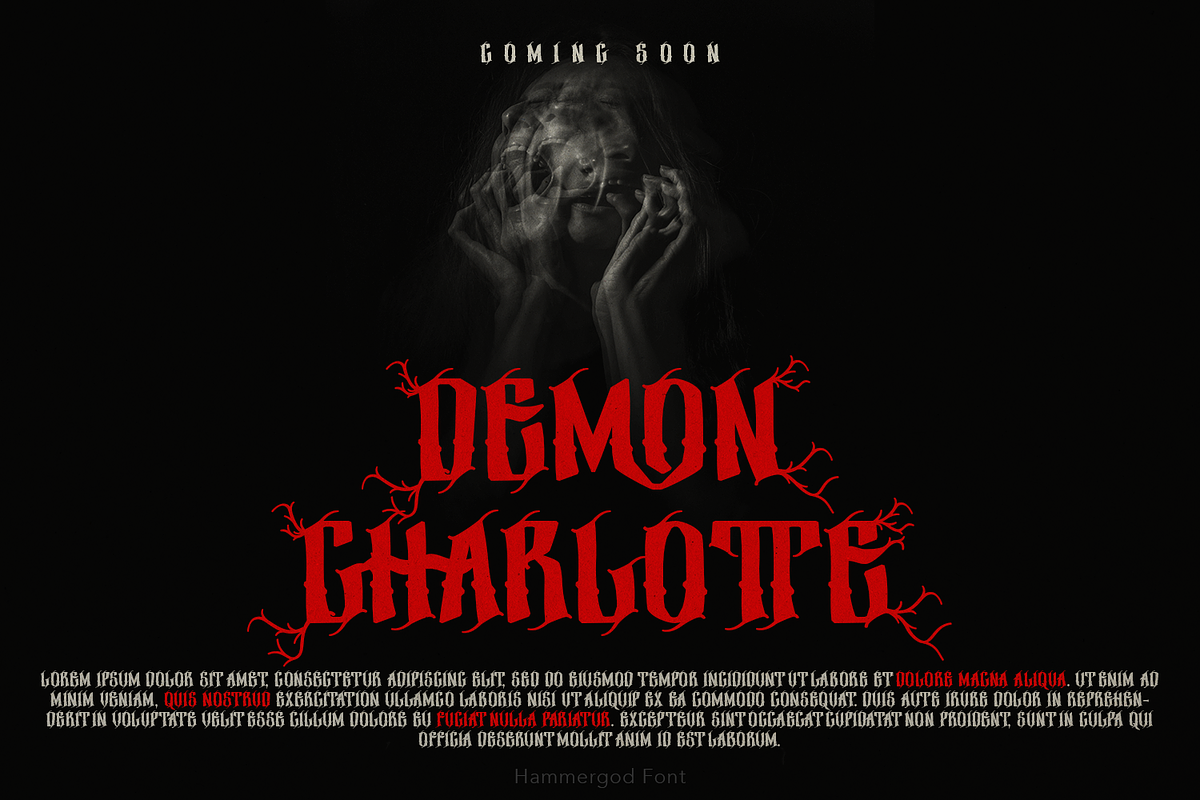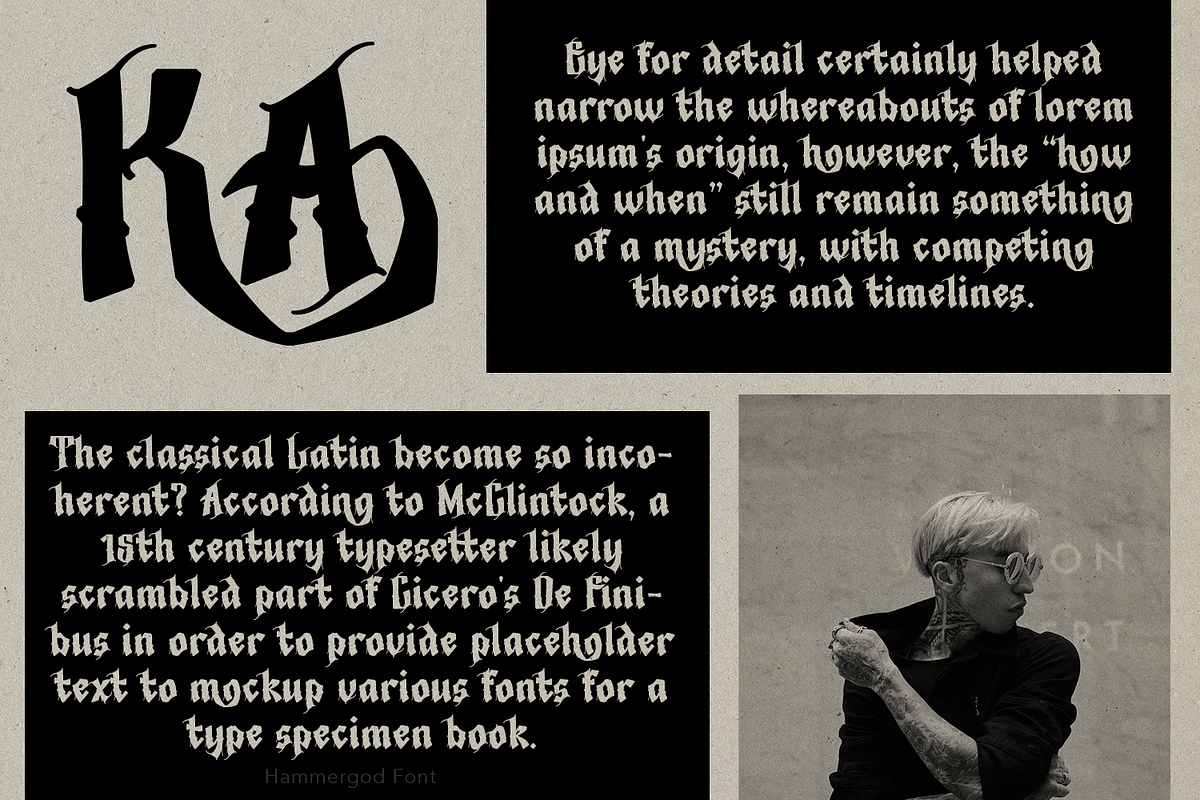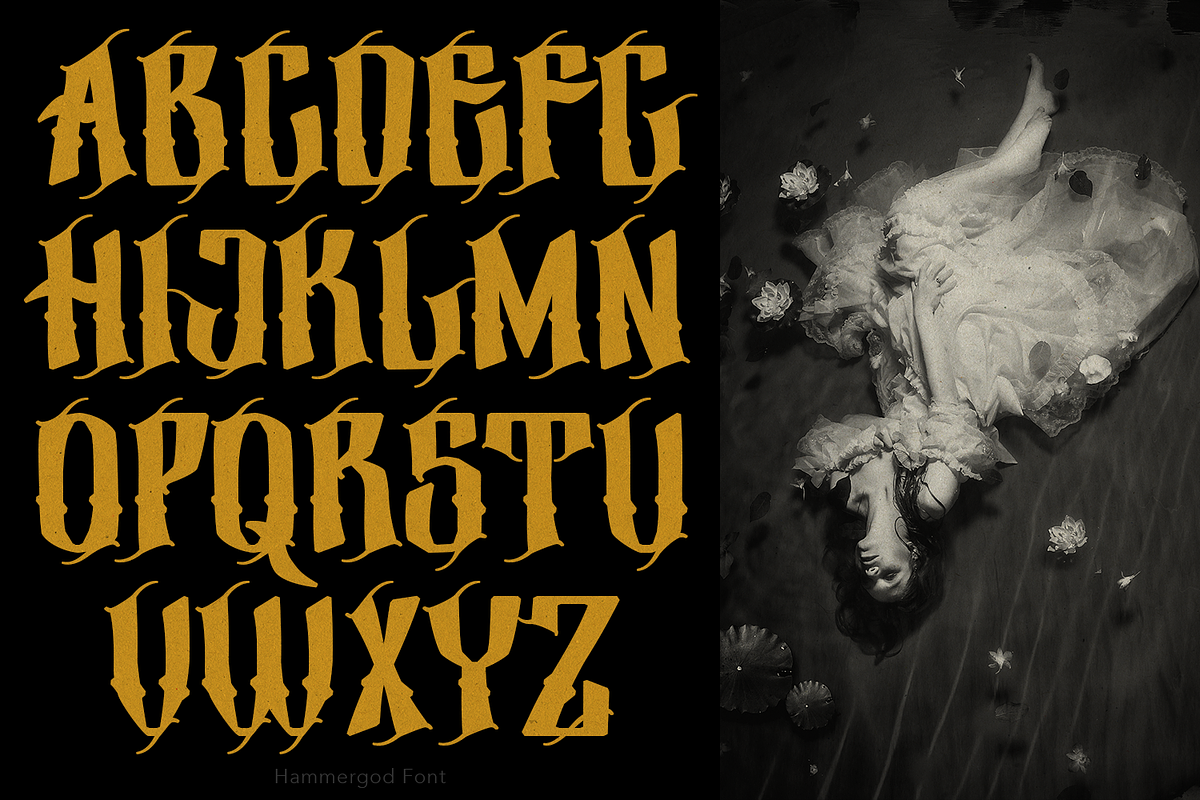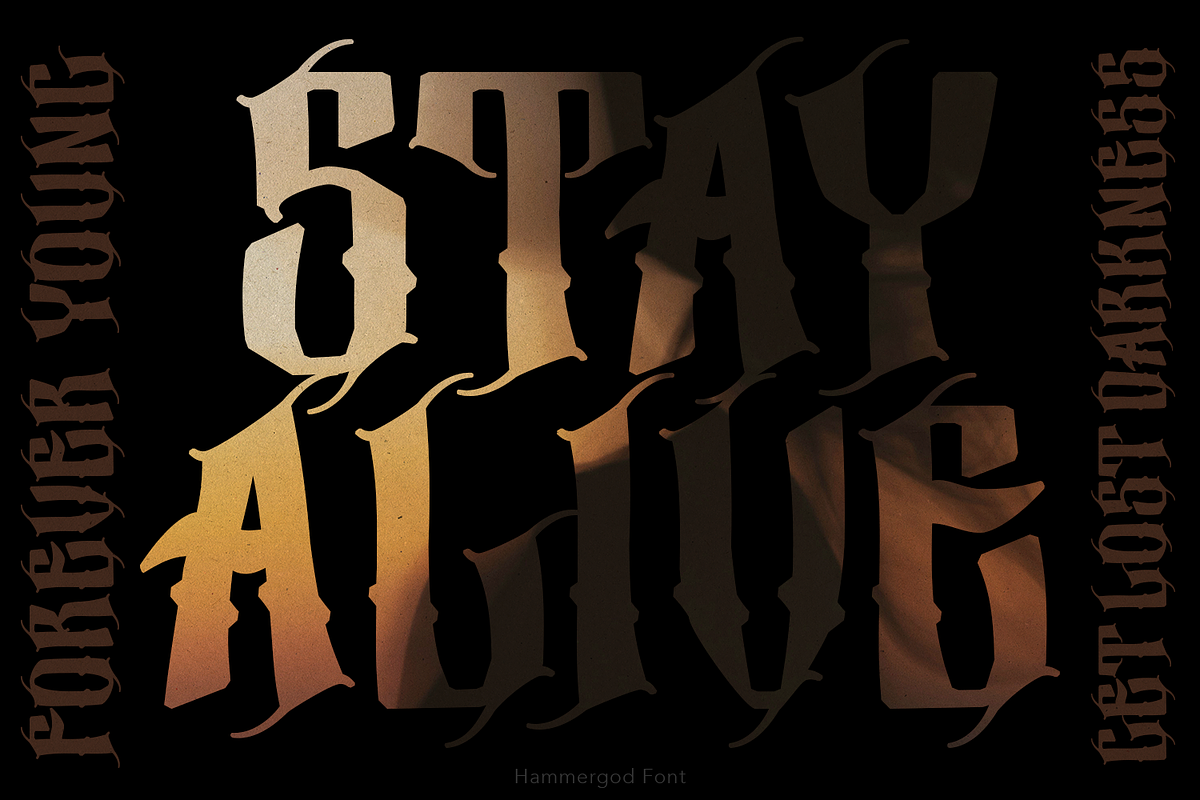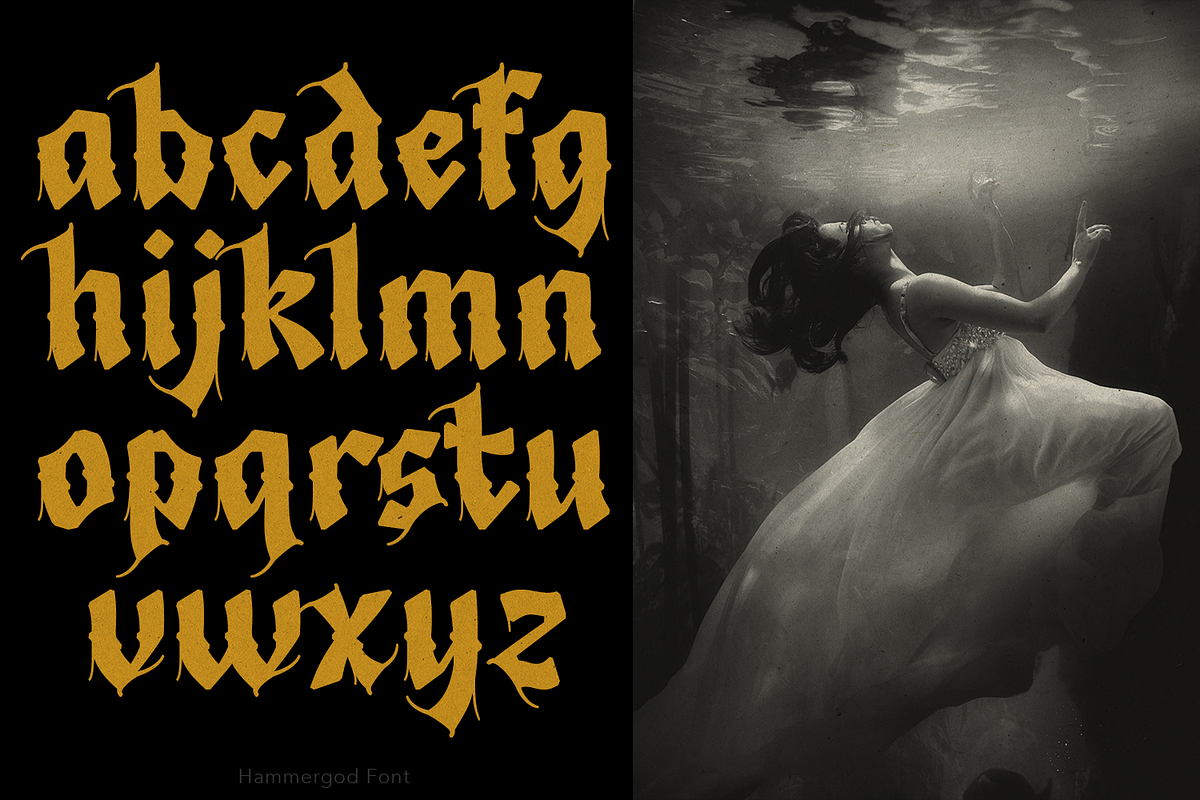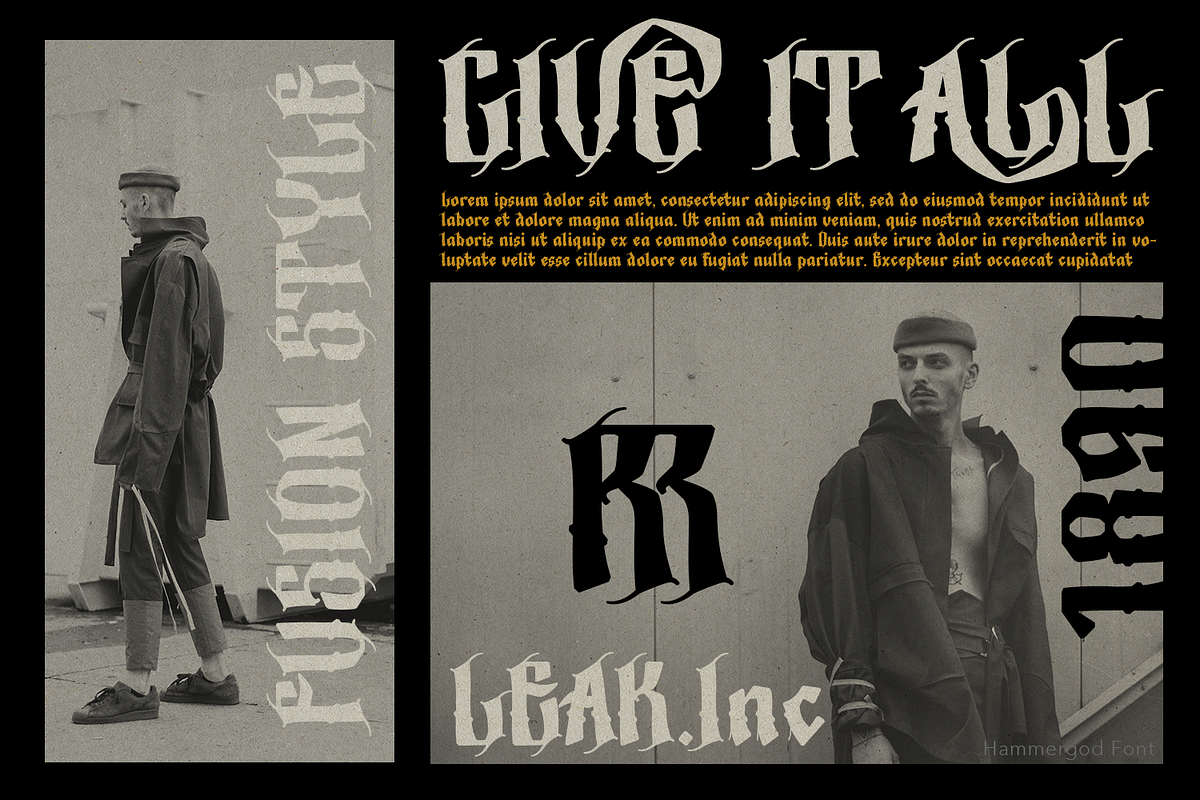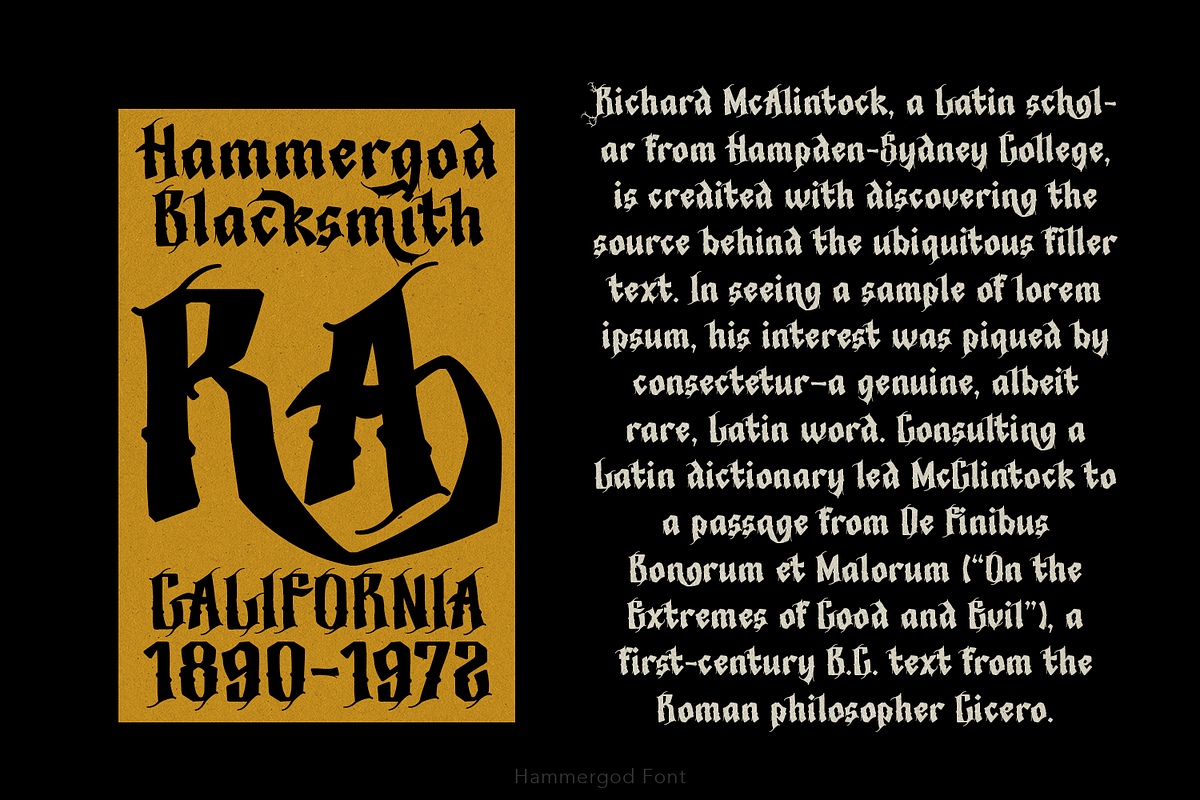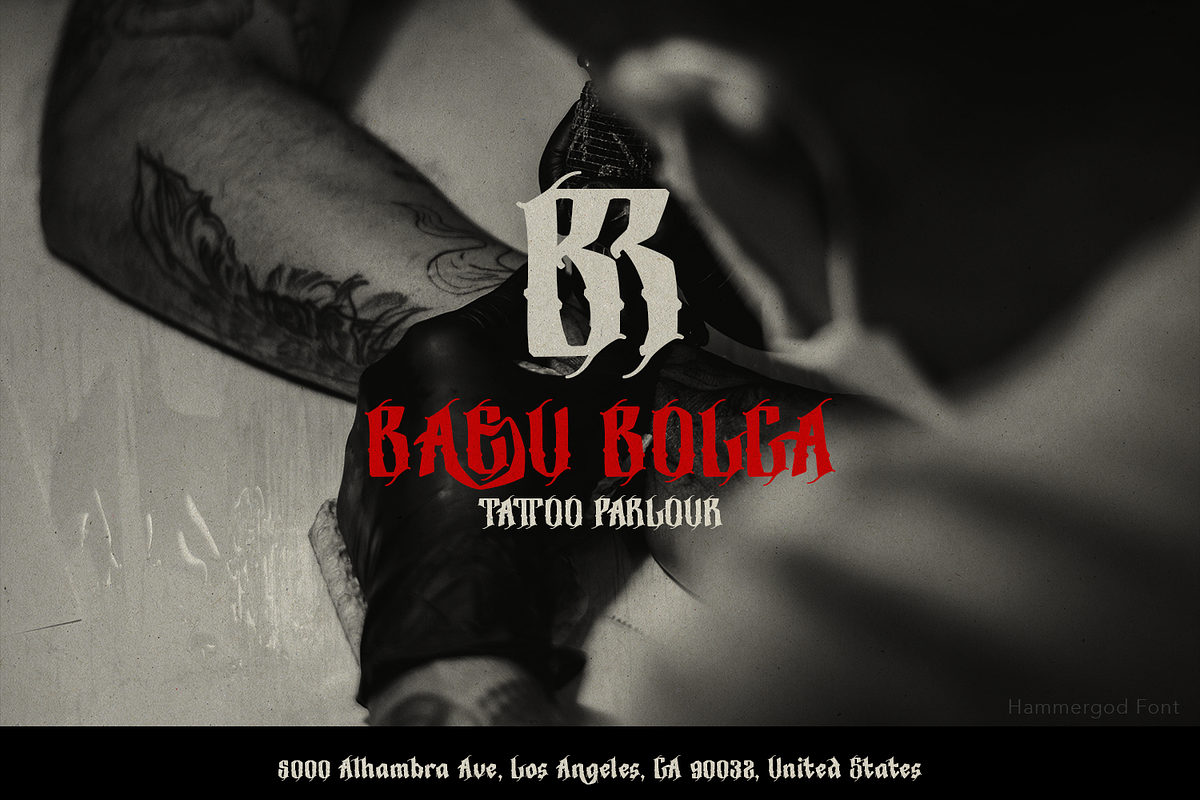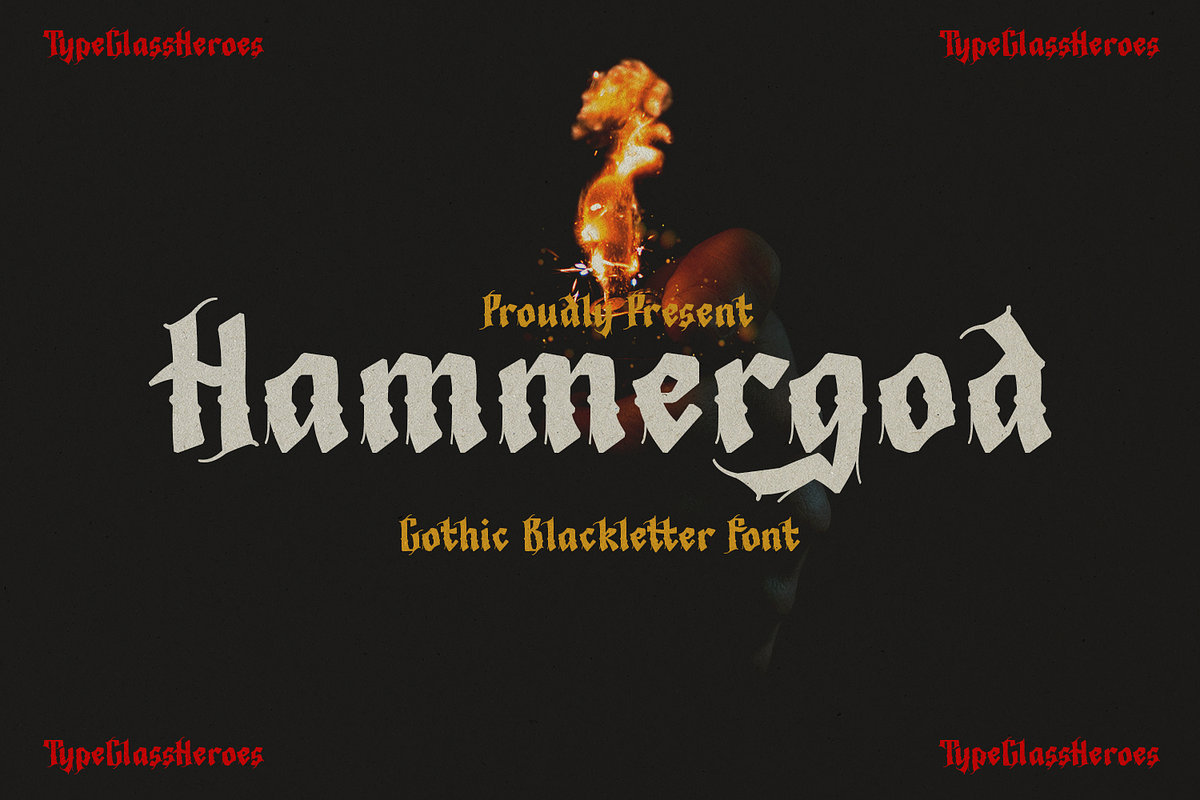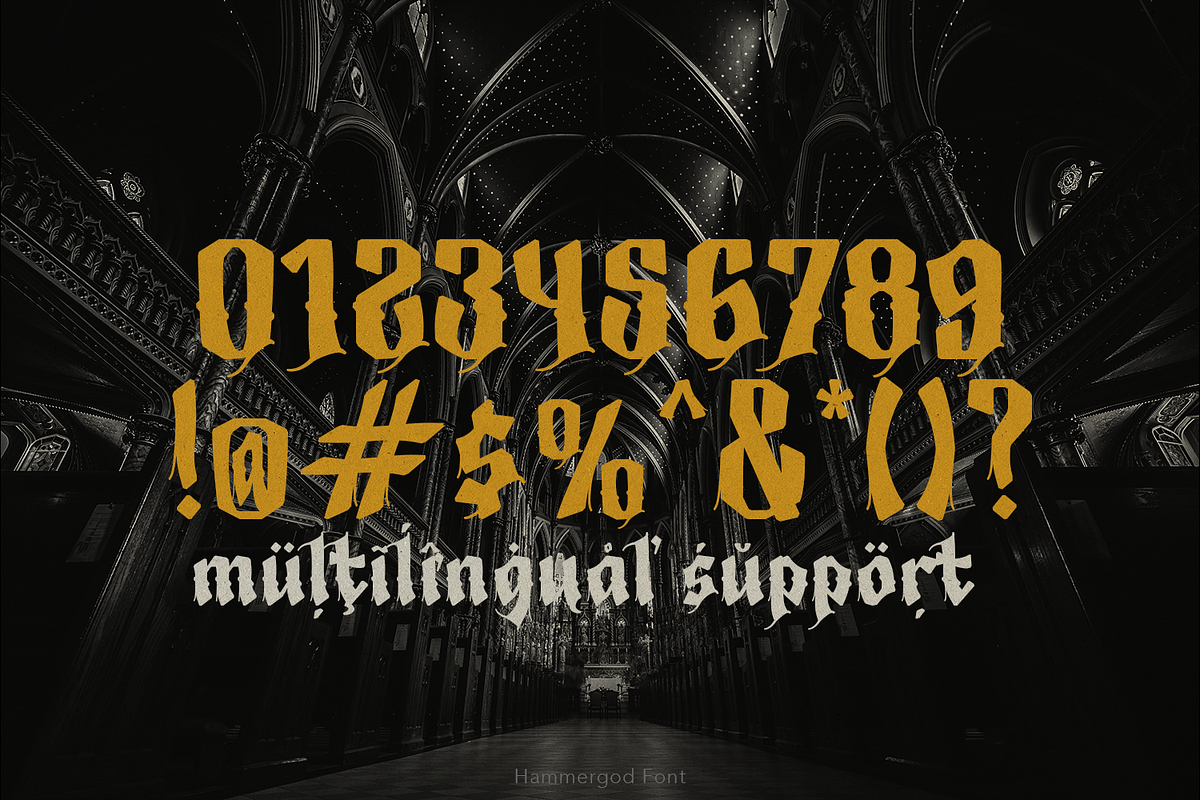
Hammergod Blackletter
Really excited to introduce HammerGod is a gothic blackletter font, made with a heavy and metal impression and supported by alternative with references to various letters that I combine. Suitable for merchandise, clothing, apparel, badges, logos, poster titles, and much more.